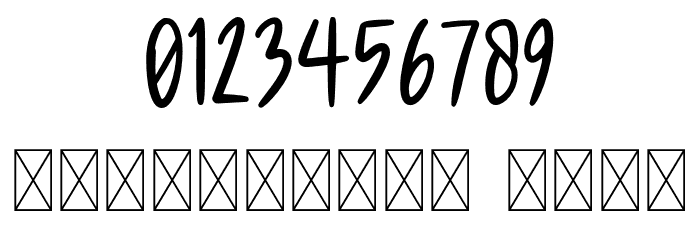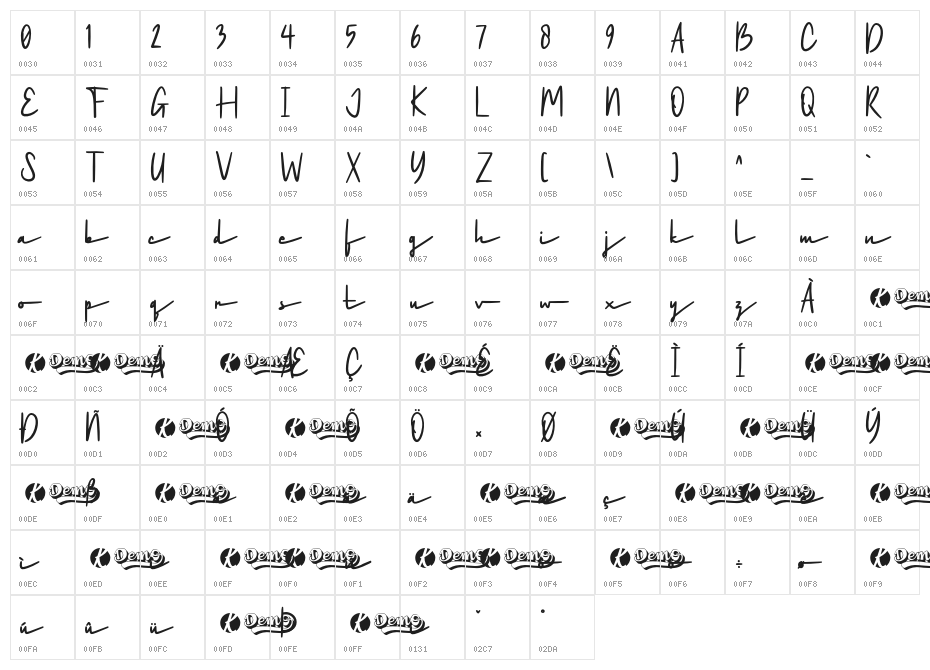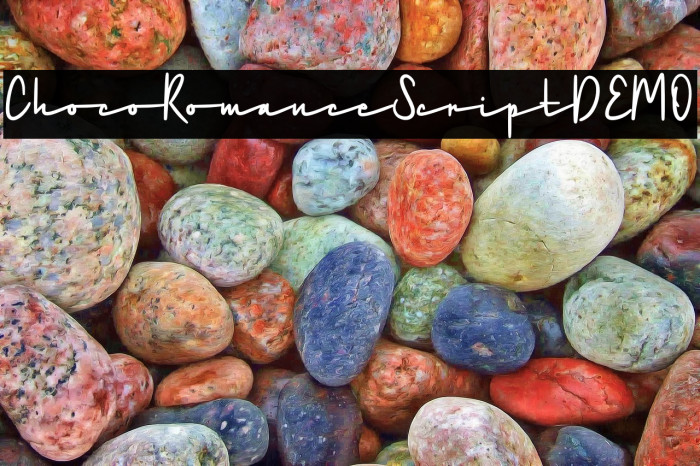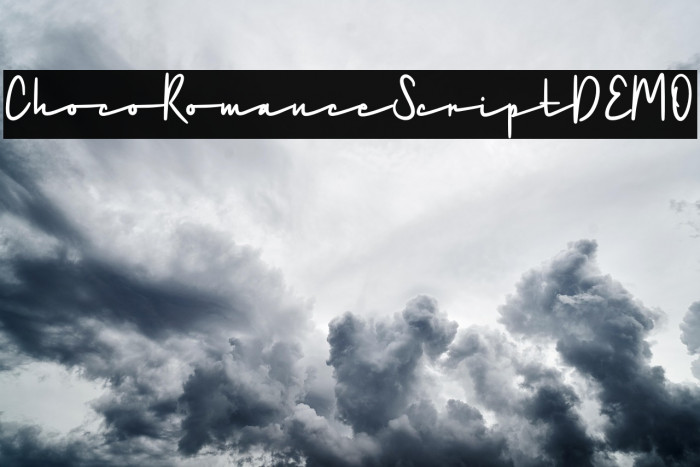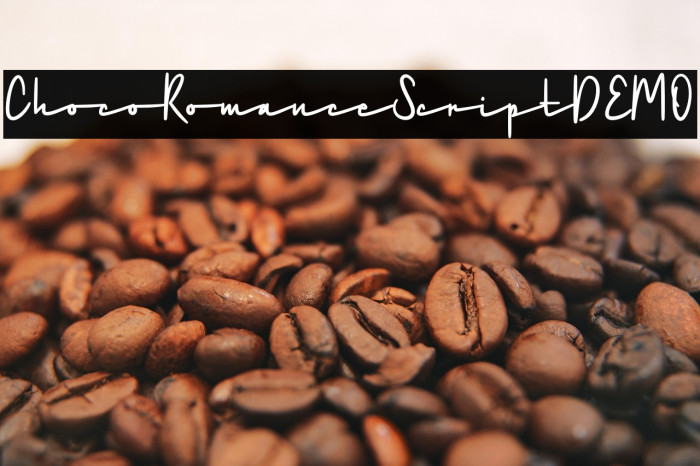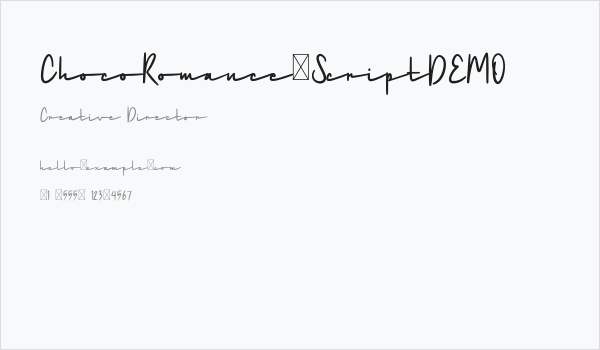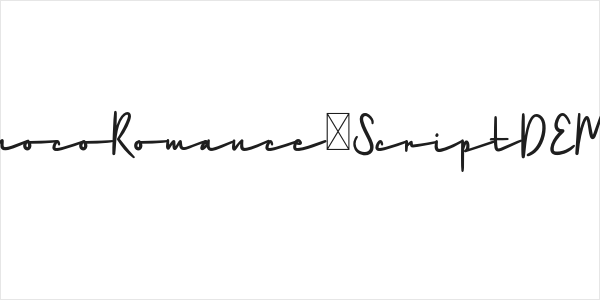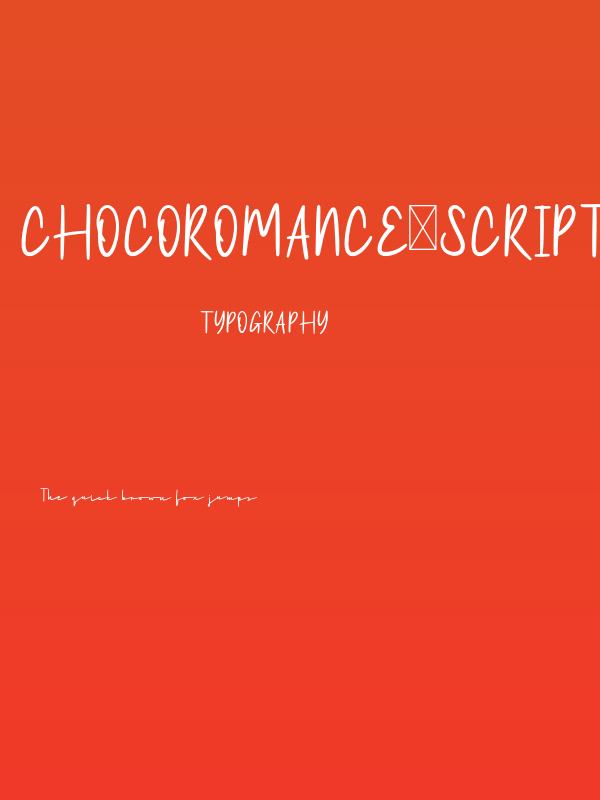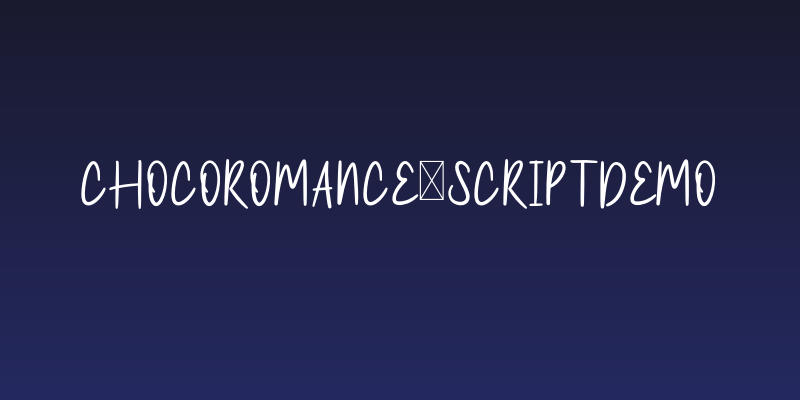
ChocoRomance-ScriptDEMO Font
ChocoRomance-ScriptDEMO Description
This font features a playful and casual script style with a handwritten feel. The uppercase letters are bold and slightly slanted, giving a dynamic and energetic appearance. The lowercase letters are more fluid and connected, resembling cursive handwriting. The numbers are clear and consistent with the overall style, maintaining the playful yet legible aesthetic. This font is ideal for projects that require a personal touch, such as invitations, greeting cards, or branding materials that aim to convey warmth and friendliness.
| Proposed Projects | Ideal for invitations, greeting cards, personal branding, and creative projects. |